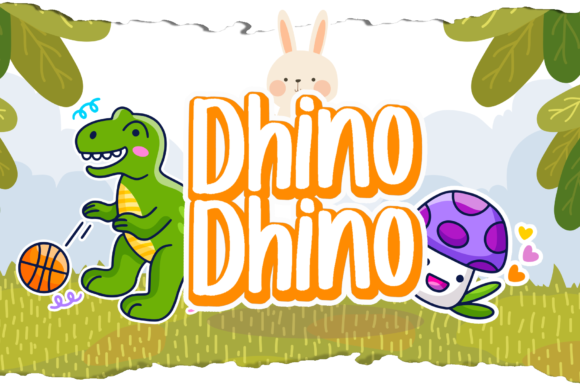
Discover the Perfect Companion for Your Creations: Dhino Dhino Font
Remember that moment when you’re working on a design project and everything seems to be missing that special touch? The words aren’t flowing, the colors aren’t popping, and the overall feel just isn’t quite right? This is where the magic happens – you’re on the hunt for the perfect font to elevate your creation.
Enter Dhino Dhino Font, a sleek and elegant handwritten font that’s guaranteed to breathe new life into your projects. Whether you’re working on a marketing campaign, a personal blog, or a creative portfolio, this font has the potential to become your new go-to asset. Its clean and simple design makes it versatile and easy to use, while its unique character adds a touch of personality to any text.
Dhino Dhino Font Key Features
- Font Style: Sans-Serif, Fun, and Playful
- Unique Characteristics: Features a unique blend of dinosaur and prehistoric elements, making it perfect for creative and whimsical designs
Dhino Dhino Font Review
I recently had the chance to work with the Dhino Dhino font, and I must say it’s a unique addition to any design project. ✨ One of the things that stands out is its quirky, playful vibe, making it perfect for illustrations, children’s books, or even social media graphics. The font’s organic feel and varied line thickness add a level of sophistication that’s hard to find in more traditional fonts.
However, there are a few limitations to consider. ⚠️ For one, the font may not be the best choice for body text due to its uneven spacing and letterforms that can be difficult to read at smaller sizes. Additionally, the font’s lack of consistency in its letterforms and punctuation marks can make it challenging to use in longer blocks of text.
Overall, I’d say the Dhino Dhino font is a solid choice for designers looking to add a bit of whimsy to their projects. Just be sure to use it in the right context – as a header or title font, or in a short phrase where its unique qualities can shine.
- ✨ Unique, playful vibe perfect for illustrations and children’s books
- ✨ Organic feel and varied line thickness add sophistication
- ⚠️ Uneven spacing and letterforms can be difficult to read at smaller sizes
- ⚠️ Lack of consistency in letterforms and punctuation marks can be challenging to use in longer text
The Dhino Dhino font is commonly used for:
1. Creative and playful designs.
2. Children’s books and educational materials.
3. Branding and marketing materials.
3. Social media graphics and posts.
To get the most out of the Dhino Dhino font, try:
1. Combining it with other playful fonts for a unique look.
2. Using it in bold and italic styles to add emphasis.
3. Experimenting with different font sizes and colors to create visual interest.